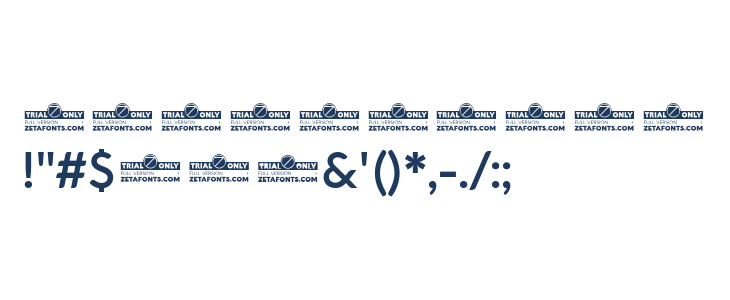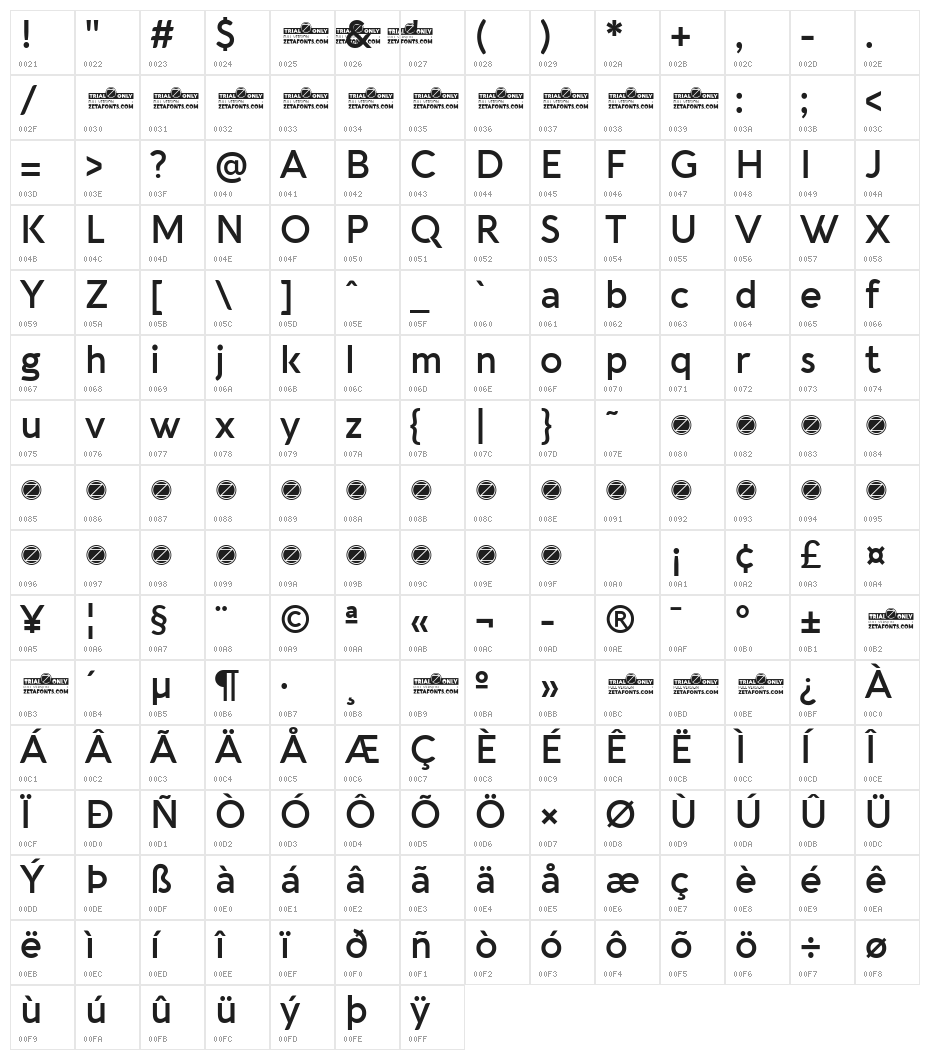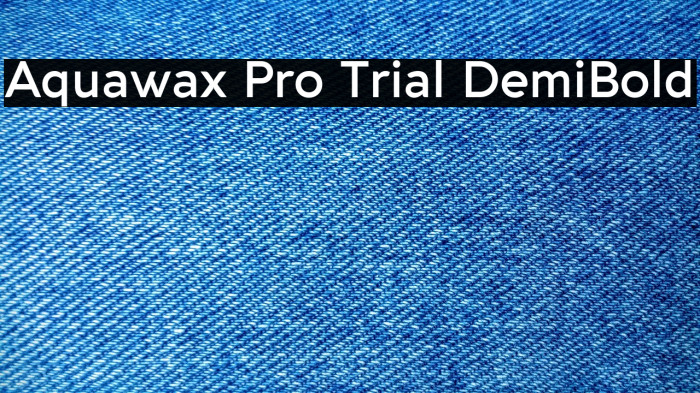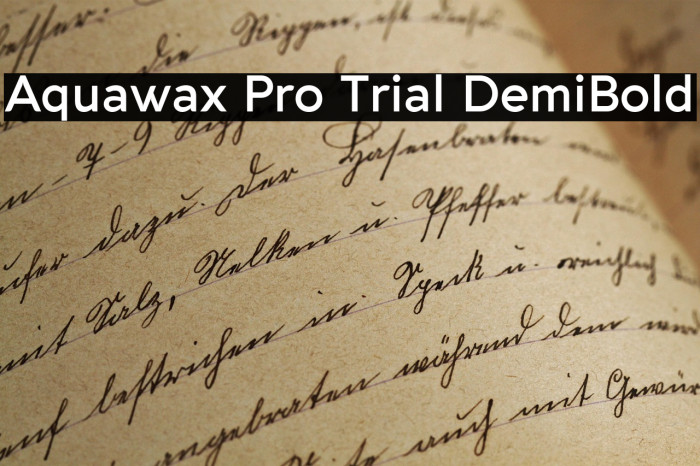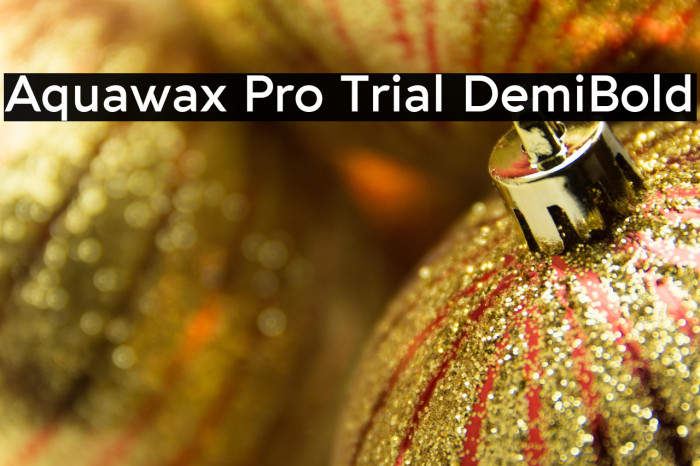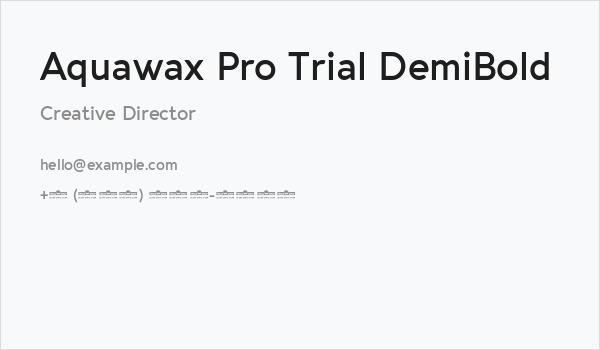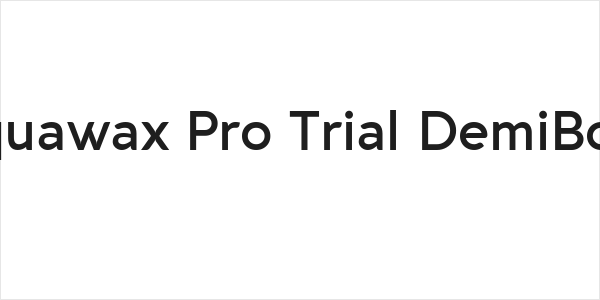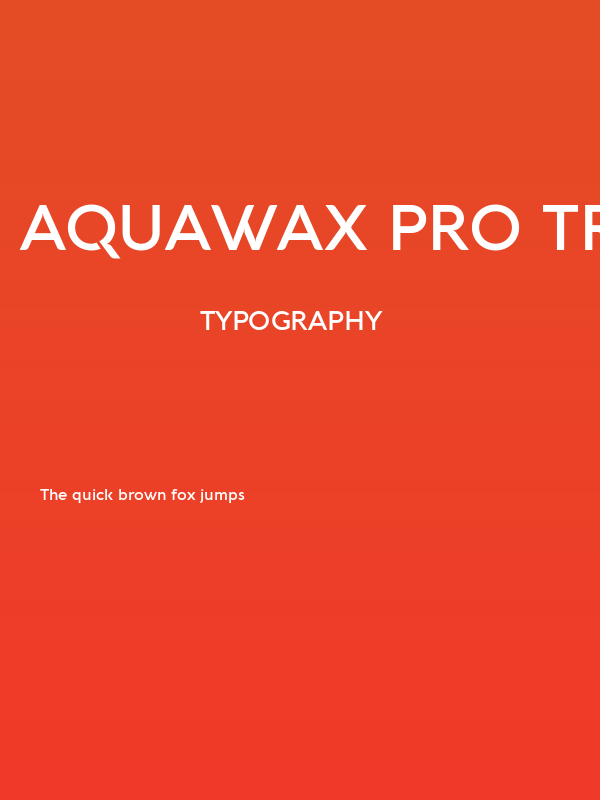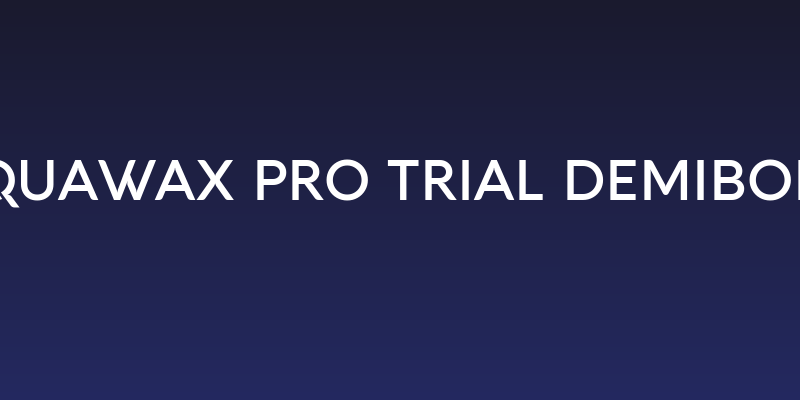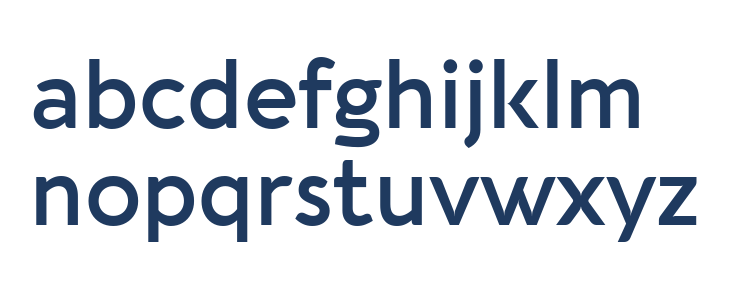
Aquawax Pro Trial DemiBold Font
Aquawax Pro Trial DemiBold Description
This font features a clean and modern sans-serif design with smooth curves and a balanced structure. The uppercase letters are bold and assertive, while the lowercase letters maintain a friendly and approachable appearance. The numerals are clear and easy to read, making them suitable for a variety of applications. Special characters are well-integrated, maintaining the overall aesthetic. The font's design is versatile, making it ideal for both digital and print media. Its contemporary style is perfect for branding, advertising, and editorial design.
Proposed ProjectsIdeal for branding, advertising, editorial design, digital media, and print materials.